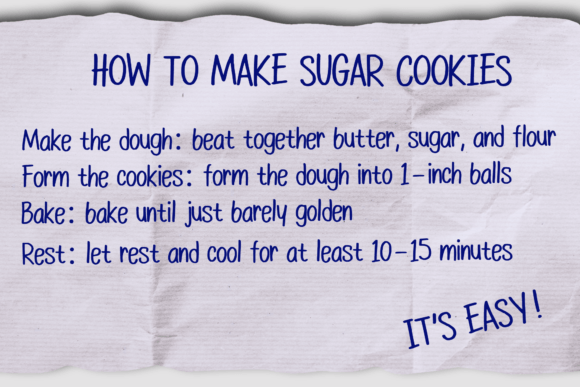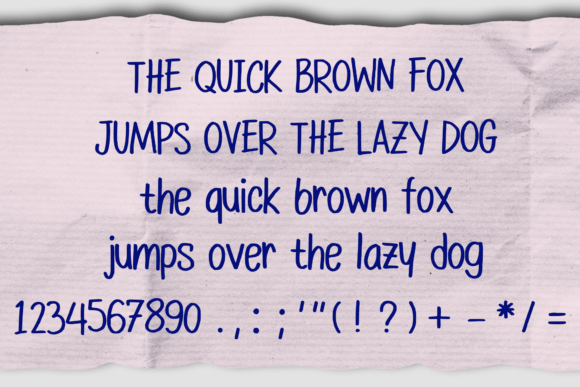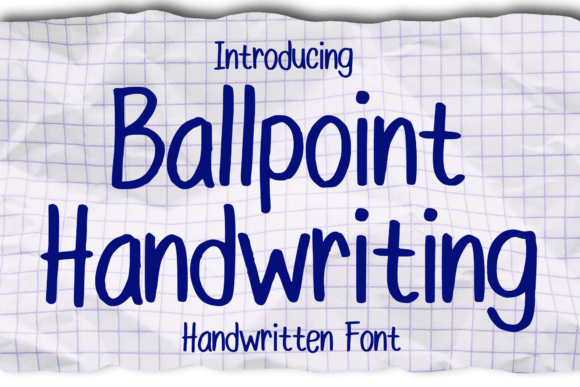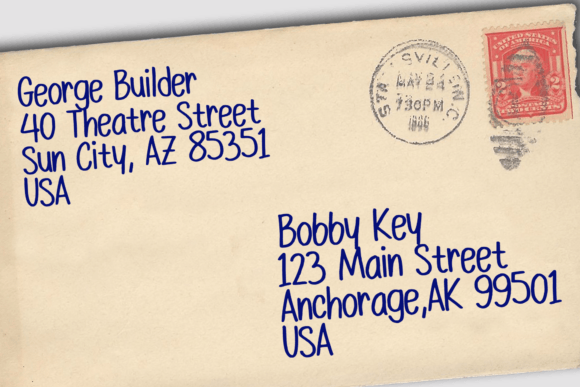
Ballpoint Handwriting Font
About the Ballpoint Handwriting Font
Experience the unique personality of Ballpoint Handwriting Font, a font designed for impact. Ballpoint Handwriting is a fun daily use and suitable for everyday use pen font. It will elevate a wide range of design projects to the highest level. You can use this font for many design ideas such as stickers, t-shirt designs, amazing logo designs, magazine or book covers, comics, cartoon drawings, and many more. This font will add a super cool touch to your designs!
Ballpoint Handwriting’s informal, hand-drawn feel makes it ideal for projects requiring a friendly, approachable aesthetic. It excels in headlines, short text blocks on posters or packaging, and branding elements where a casual, almost quirky personality is desired. Think children’s books, craft projects, or brands targeting a younger demographic. Avoid using it for body text or lengthy paragraphs; its irregularity hinders readability in extended use.
This font pairs well with clean sans-serif fonts like Open Sans or Lato for a balanced contrast, or with a playful script like Pacifico for a more cohesive, handwritten feel. A geometric sans-serif like Montserrat could also provide a modern counterpoint, emphasizing the hand-drawn nature of Ballpoint Handwriting.
The font’s overall personality is best described as playful and informal, conveying a sense of immediacy and friendliness. Its slightly imperfect nature adds to its charm, making it unsuitable for projects demanding high levels of formality or professionalism.
Ballpoint Handwriting Font Usage Examples
Ballpoint Handwriting Font Example